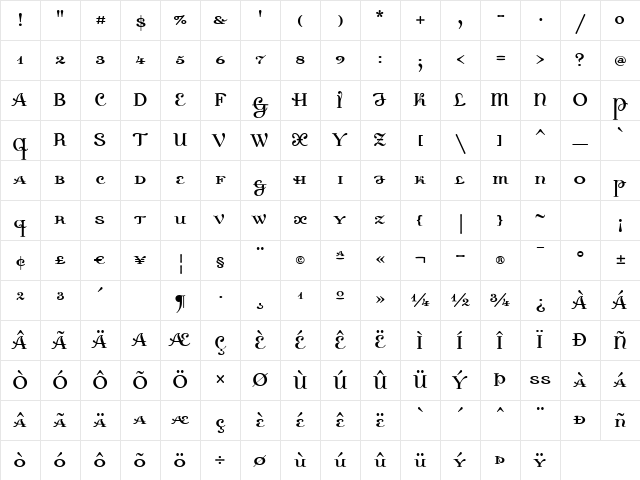
Complete Dalliance Roman Small Caps Regular glyph index. Displaying only characters natively supported by Dalliance Roman Small Caps Regular font.
Dalliance Roman Small Caps is a composed and adaptable typeface that performs quietly and consistently across a wide range of design contexts.